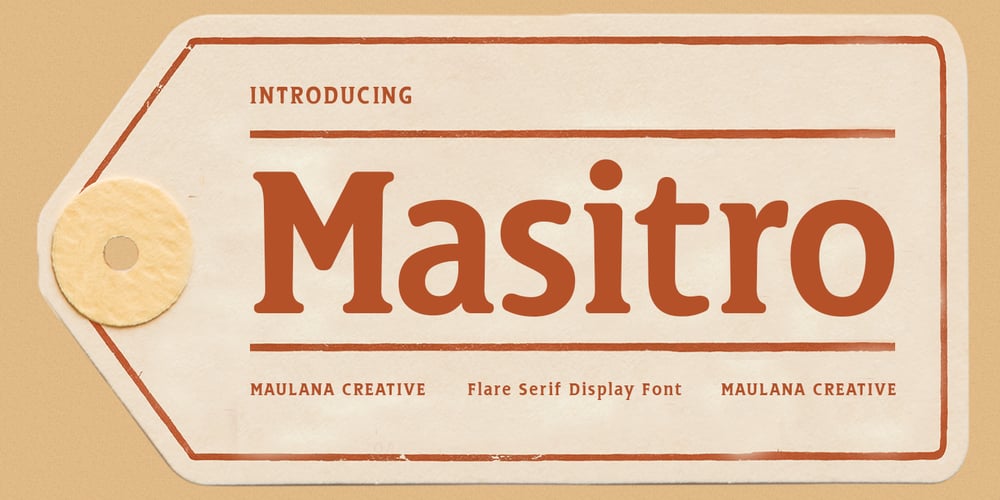
MC Masitro Font Family was designed by Gilang Maulana and published by Maulana Creative. MC Masitro contains 1 styles and family package options. Masitro is a rounded flare serif Display font. Bold stroke, fun character with a bit of ligatures and alternates. To give you an extra creative work. Masitro font support multilingual more than 100+ language. This font is good for logo design, Social media, Movie Titles, Books Titles, a short text even a long text letter and good for your secondary text font with script or serif. Make a stunning work with Masitro font. Cheers, MaulanaCreative